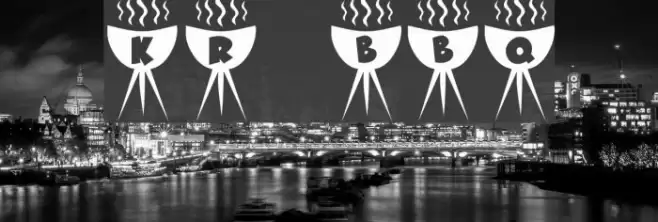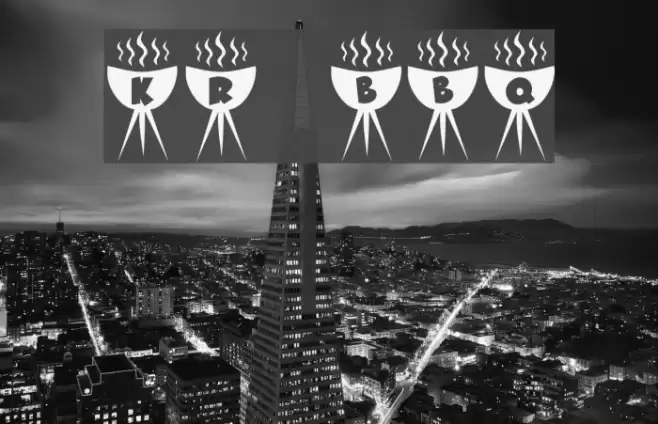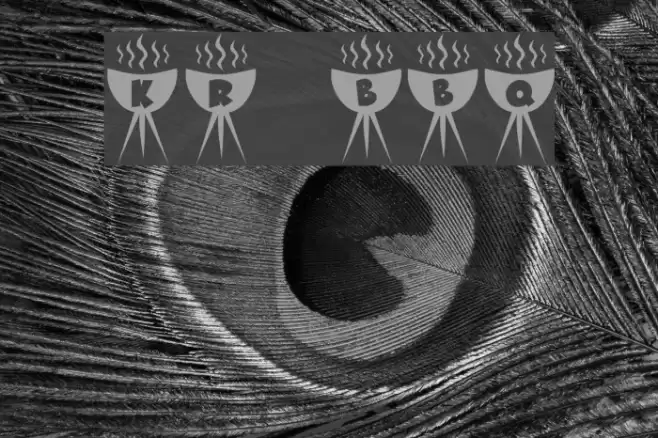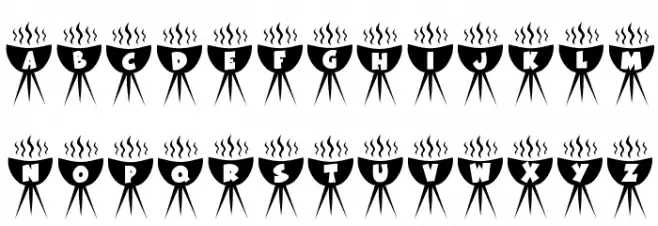
KR BBQ Font
KR BBQ Description
This decorative font features uppercase letters integrated into stylized barbecue grills, complete with legs and steam rising from the top. Each character is creatively designed to resemble a grill, making it ideal for thematic projects. The font is bold and eye-catching, with a playful and unique style that stands out. The uniformity in design across all letters ensures a cohesive look, while the grill motif adds a fun, thematic element. This font is perfect for projects related to cooking, outdoor events, or any design that requires a touch of whimsy and creativity.
A decorative font with letters styled as barbecue grills, perfect for thematic designs from Uncategorized fonts.
- Proposed Projects: Ideal for BBQ event posters, cooking blogs, themed restaurant menus, or playful graphic designs.
- Use Case: Logos, Headlines, Themed Invitations